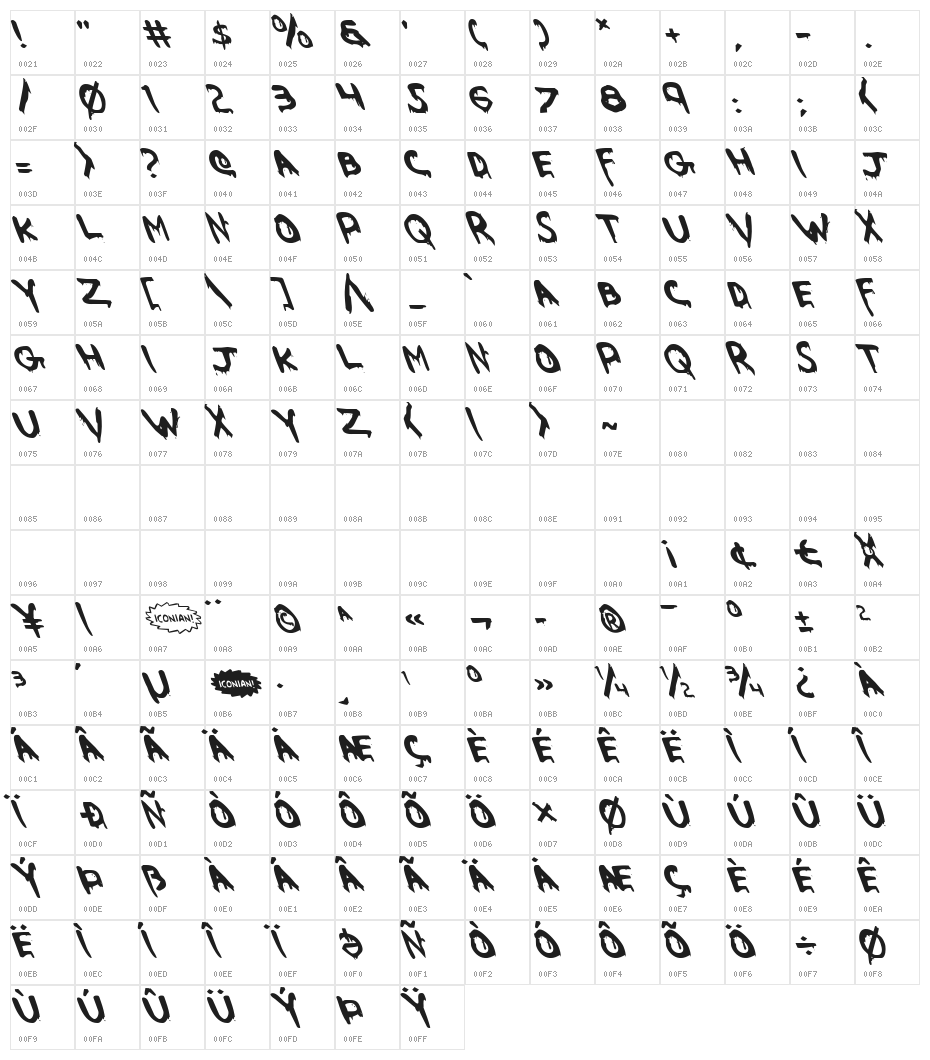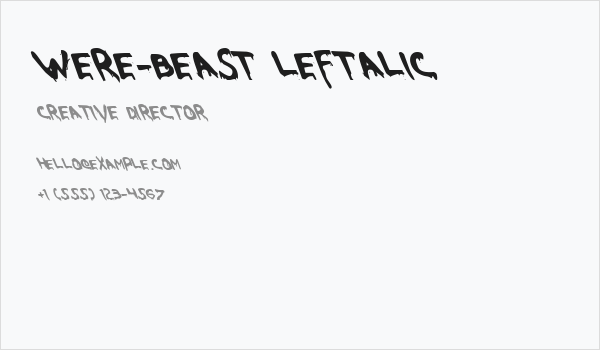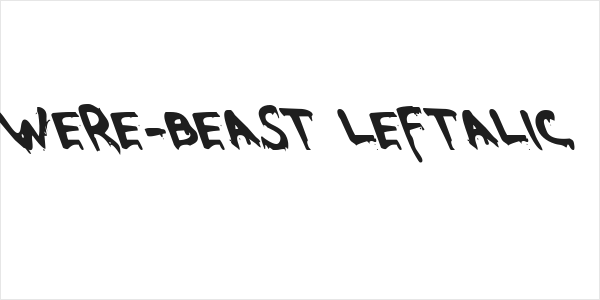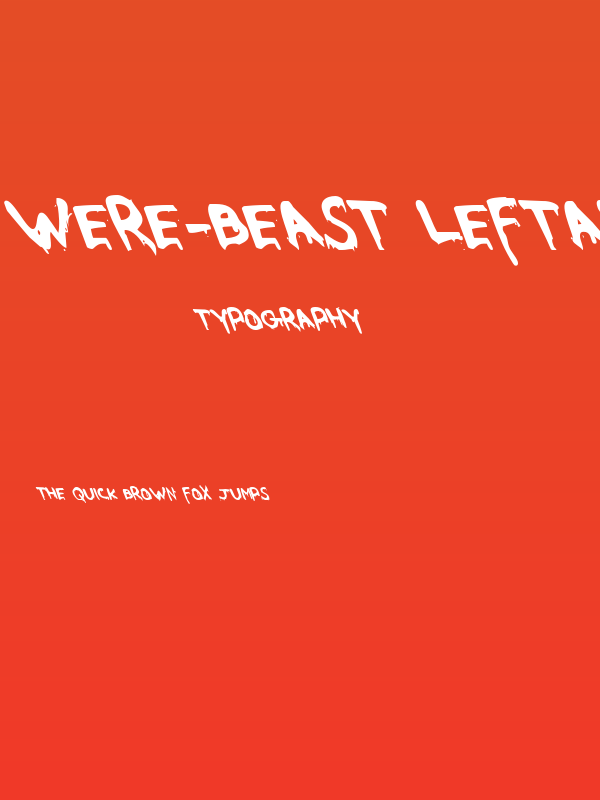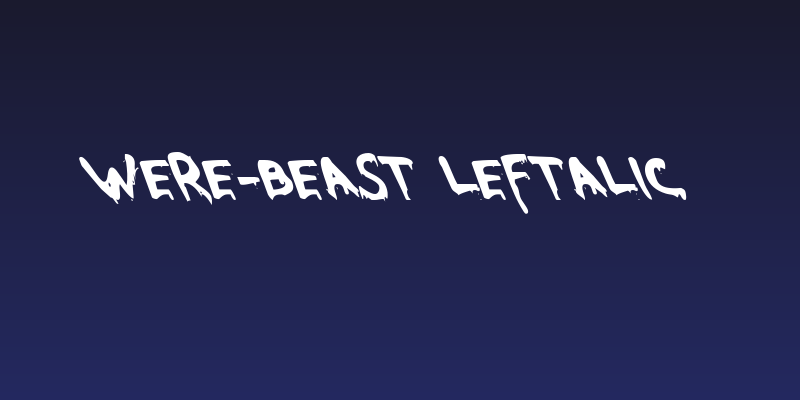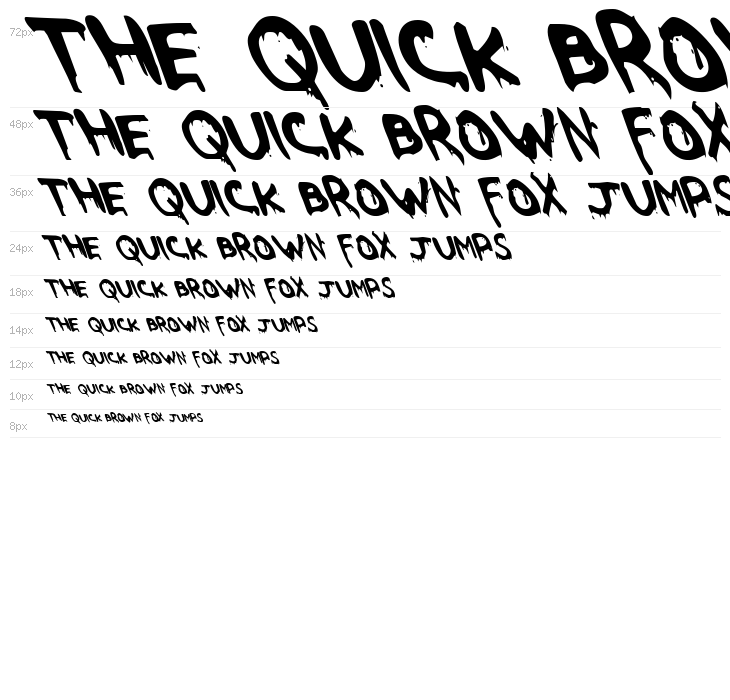
Were-Beast Leftalic Font
Were-Beast Leftalic Description
This font exudes a wild and untamed energy, with its jagged, irregular edges and dynamic, slanted orientation. The characters appear to be dripping or melting, adding a sense of movement and unpredictability. The uppercase and lowercase letters maintain a consistent style, with bold strokes and a slightly chaotic appearance. Numbers and special characters follow the same aesthetic, making the font cohesive and visually striking. Its unique design is reminiscent of horror or fantasy themes, perfect for creating an intense and dramatic visual impact.
| Proposed Projects | Ideal for horror movie posters, Halloween event flyers, video game titles, or any project requiring a dramatic and intense visual impact. |